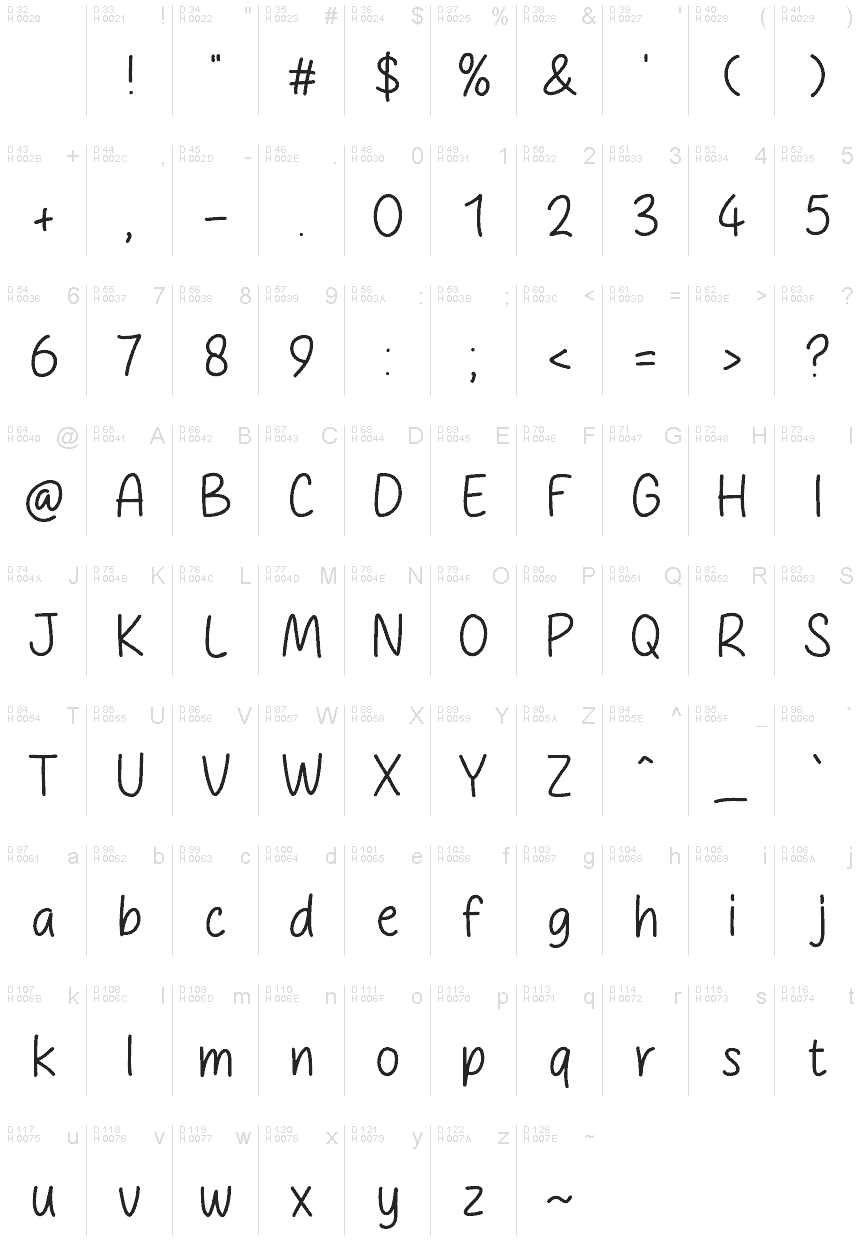
The Penchill
The Penchill font by MJType is a light handwritten typeface with a casual aesthetic and artistic touch. Its hand-drawn feel and approachable mood make all readers feel like they are engaging with a friendly interlocutor instead of just reading text off the page. The potential of this free font lies in modern applications, among others, which enjoy and need such easy communications.